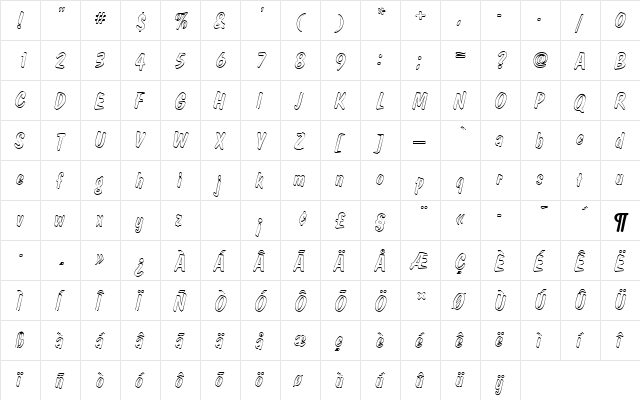
DomCasualDRegItaOu1 Regular Font Preview
DomCasualDRegItaOu1 Regular
DomCasualDRegItaOu1 Regular Font Details
Design Context for DomCasualDRegItaOu1 Typeface
DomCasualDRegItaOu1 is a composed and adaptable typeface that performs quietly and consistently across a wide range of design contexts.